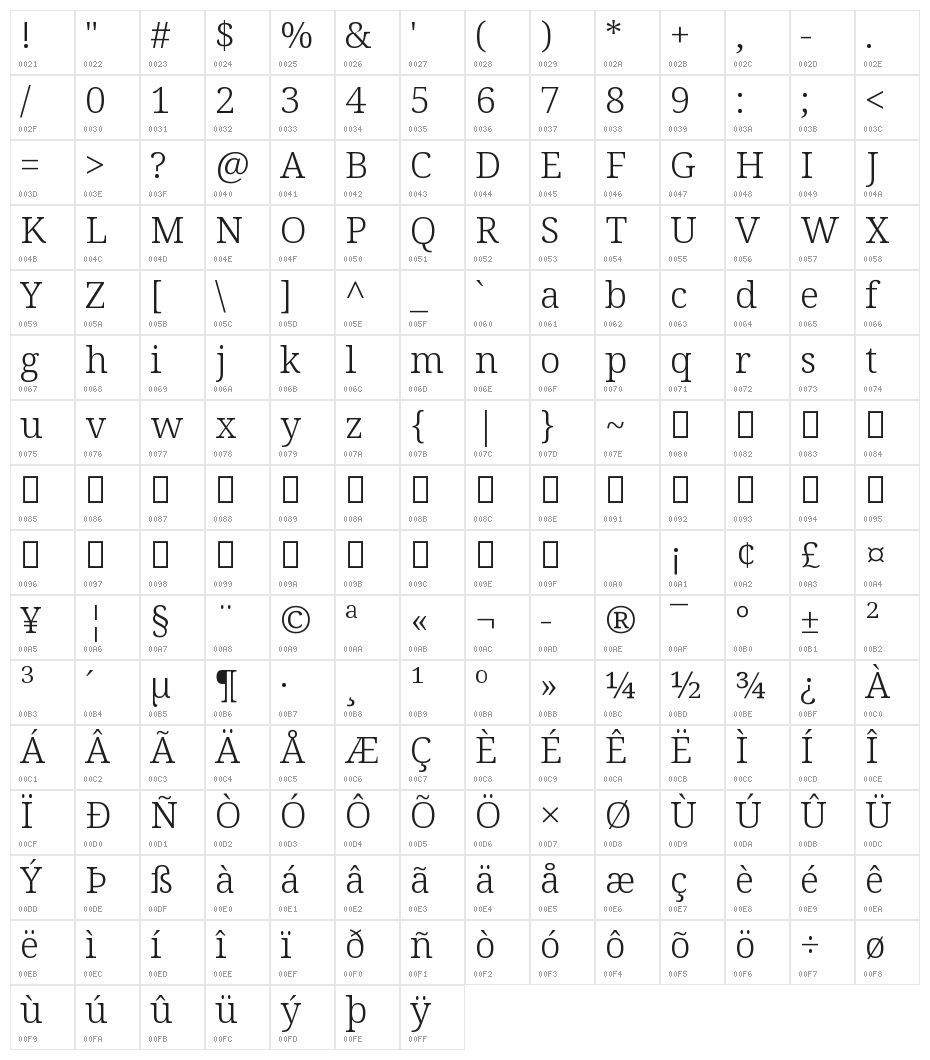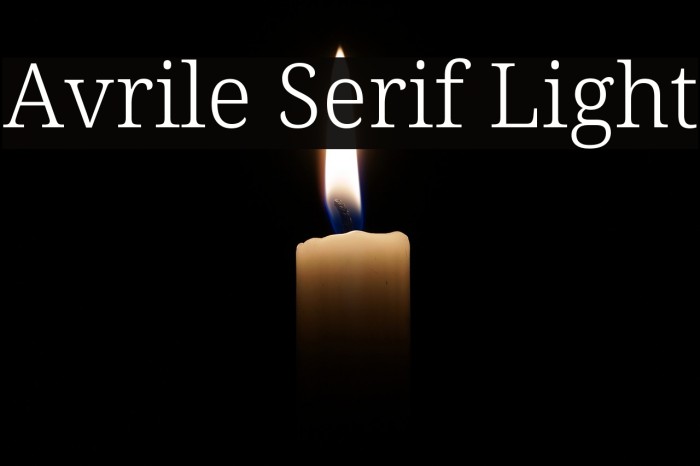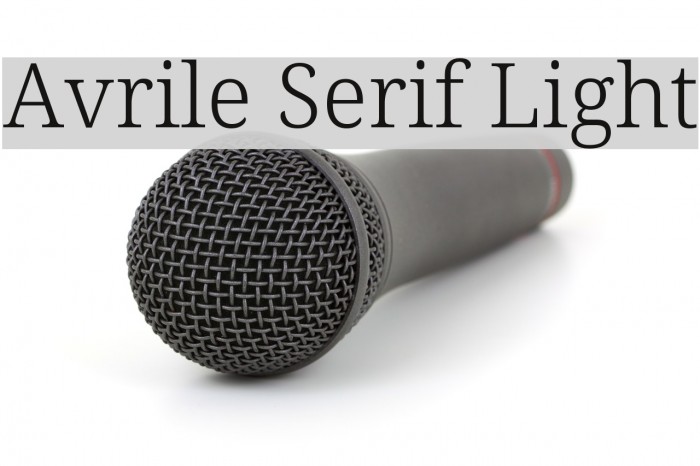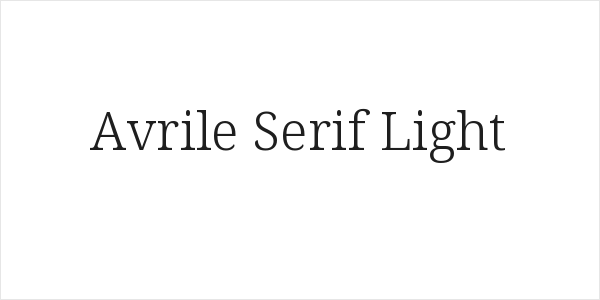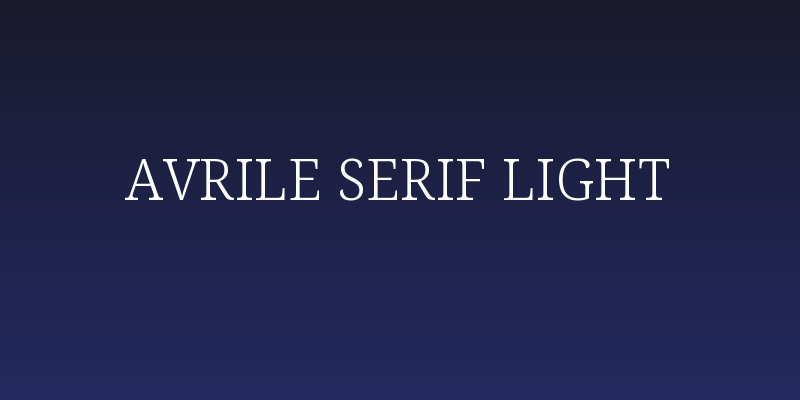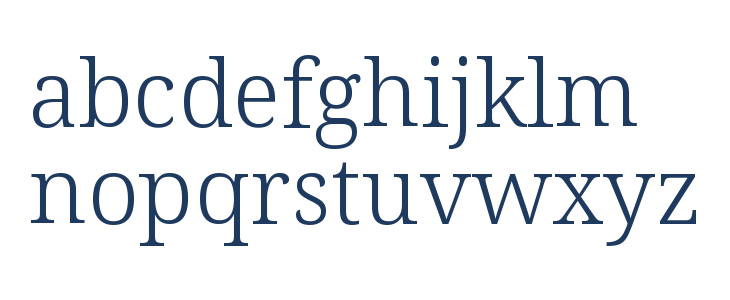
Avrile Serif Light Font
Avrile Serif Light Description
This font features a classic serif style with elegant and refined strokes. The characters exhibit a light weight, giving them a delicate and sophisticated appearance. The serifs are pronounced yet subtle, adding a touch of traditional charm. The overall design is clean and legible, making it suitable for a variety of applications. The uppercase letters are well-proportioned, while the lowercase letters maintain a consistent flow. Numbers and special characters are designed to complement the alphabet, ensuring a cohesive look across all text elements.
| Proposed Projects | Ideal for editorial design, book covers, formal invitations, and branding projects that require a touch of elegance. |